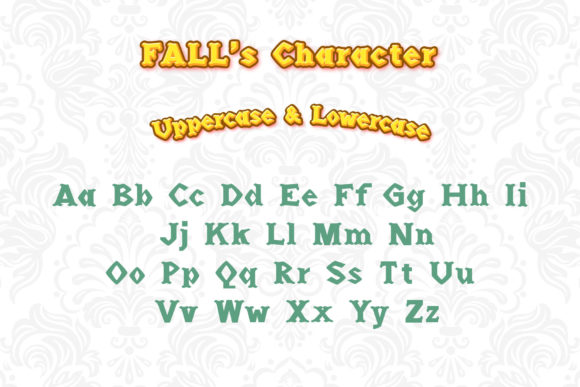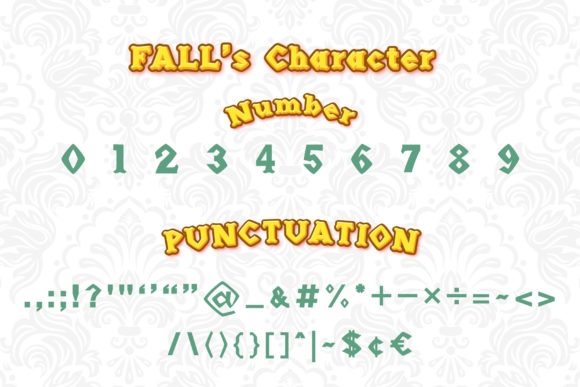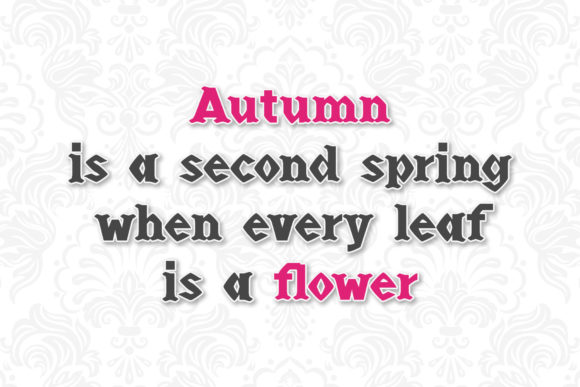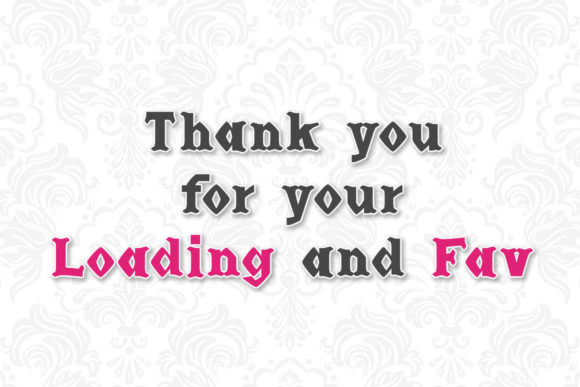
Discover the Warmth of Fall Font
As a designer, there’s nothing quite like the thrill of seeing a project come to life. It’s that moment when you finally find the perfect font, the one that captures the essence of your idea and takes it to the next level. For me, that moment often involves the Fall Font, a beautiful serif font that adds a touch of warmth and sophistication to any project.
Designed to evoke the cozy feeling of the autumn season, Fall Font is a versatile font that can be used in a wide range of projects, from invitations and greeting cards to magazines and websites. Its classic, elegant style makes it a valuable addition to any designer’s toolkit, allowing you to create beautiful and engaging designs that stand out from the crowd.
- Unique Characteristics: Fall Font features a distinctive, hand-drawn style with subtle texture and organic feel, making it perfect for creating warm and inviting designs.
- Stylistic Sets: Fall Font includes 5 stylistic sets that allow you to customize the font’s look and feel, from subtle texture variations to bold, hand-painted styles.
Designer Review: Fall Font
Overall, I think Fall Font has some great qualities, but it also has some areas that need improvement. Let’s dive in!
Unique Character Set
The font has a distinctive character set that’s perfect for fall-themed designs. The curly and ornate details add a touch of elegance to any project.
Customizability
Fall Font offers a range of customization options, including font sizes, colors, and styles, making it easy to adapt to different design needs.
Overall, I think Fall Font is a solid choice for designers looking to create seasonal or themed designs. While it has some limitations, its unique character set and customizability make it a great option for the right projects.
Tips for Getting the Most Out of the Fall Font
Use the Fall Font to create a warm and inviting atmosphere in your designs. Pair it with earthy colors and natural textures to create a cohesive look.
Experiment with different font sizes and styles to create visual interest and hierarchy in your designs.
The Fall Font is perfect for:
- Seasonal marketing campaigns
- Food and beverage branding
- Outdoor and nature-themed designs